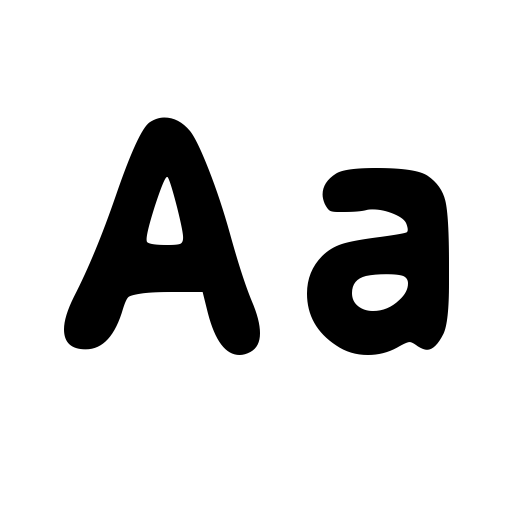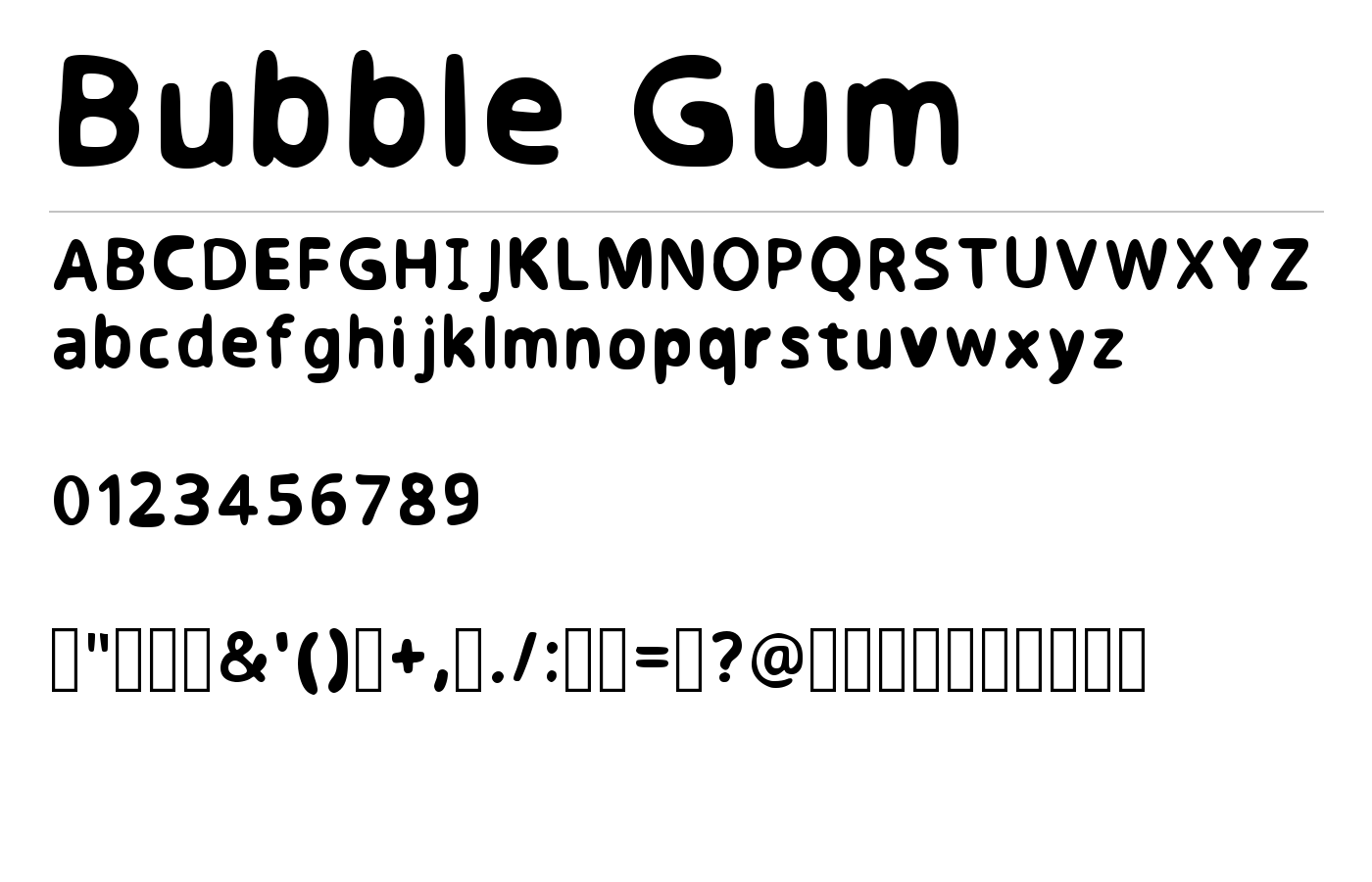
Bubble Gum is a playful and friendly sans serif font featuring rounded, bold letterforms with a soft, hand-drawn feel. Its generous x-height and slightly irregular shapes give it a casual, approachable personality, perfect for children’s books, informal branding, and fun packaging. This font works well where a lighthearted, inviting tone is needed, especially in logos, posters, and headlines aimed at a youthful audience.
Bubble Gum Font
About Bubble Gum Font
| Font family | Bubble Gum Font |